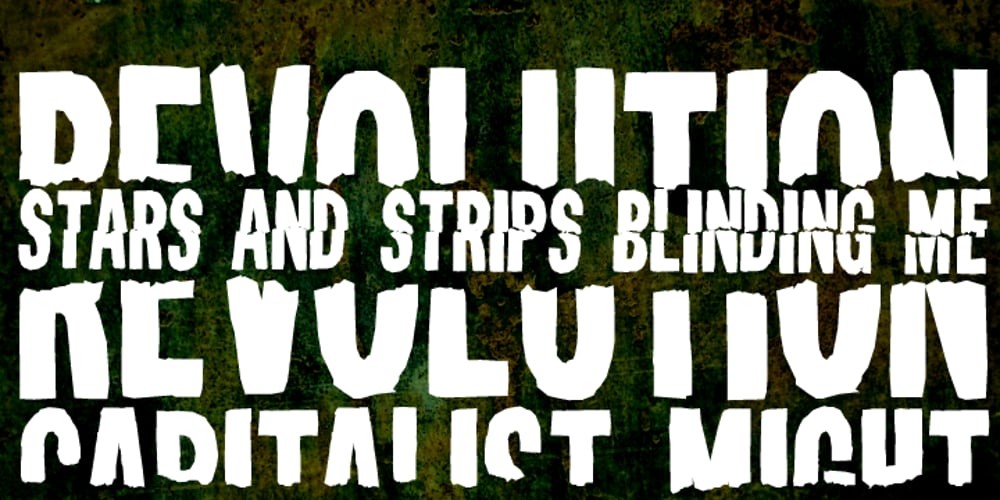
Zen Arcade Font Family was designed by Michael Wallner and published by The Type Fetish. Zen Arcade contains 3 styles and family package options. Zen Arcade is dedicated to the greatest punk band of all time, Hüsker Dü. And named after their greatest record. If you don’t own it, you are nothin’ but a poser.